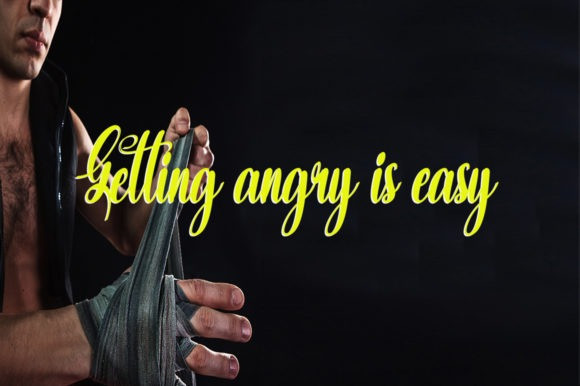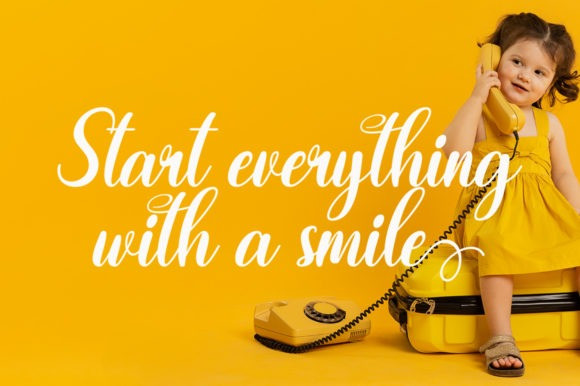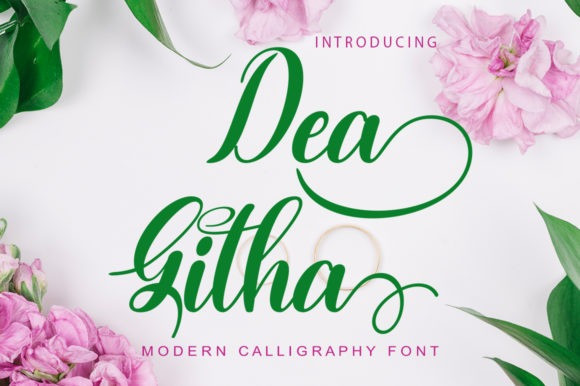
Dea Githa Font
Dea Githa Script Font simplifies elegance into one truly outstanding script font. It maintains its classy calligraphic influences while feeling contemporary and fresh. This versatility will appeal to a wide range of crafty ideas, from letterheads and titles, to stationery.
This font is PUA encoded which means you can access all of the cute glyphs and swashes with ease! It also features a wealth of special features including alternate glyphs and ligatures.